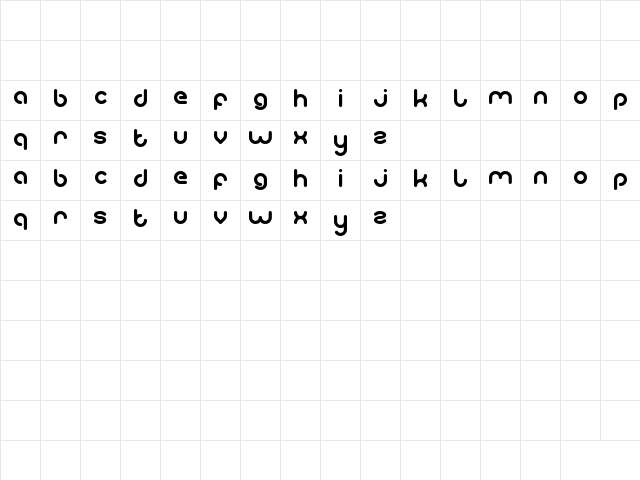
gitchgitch Regular
Design Context for gitchgitch Typeface
gitchgitch takes a measured approach to typography — its balanced proportions and neutral character make it a reliable workhorse for both digital and print work.